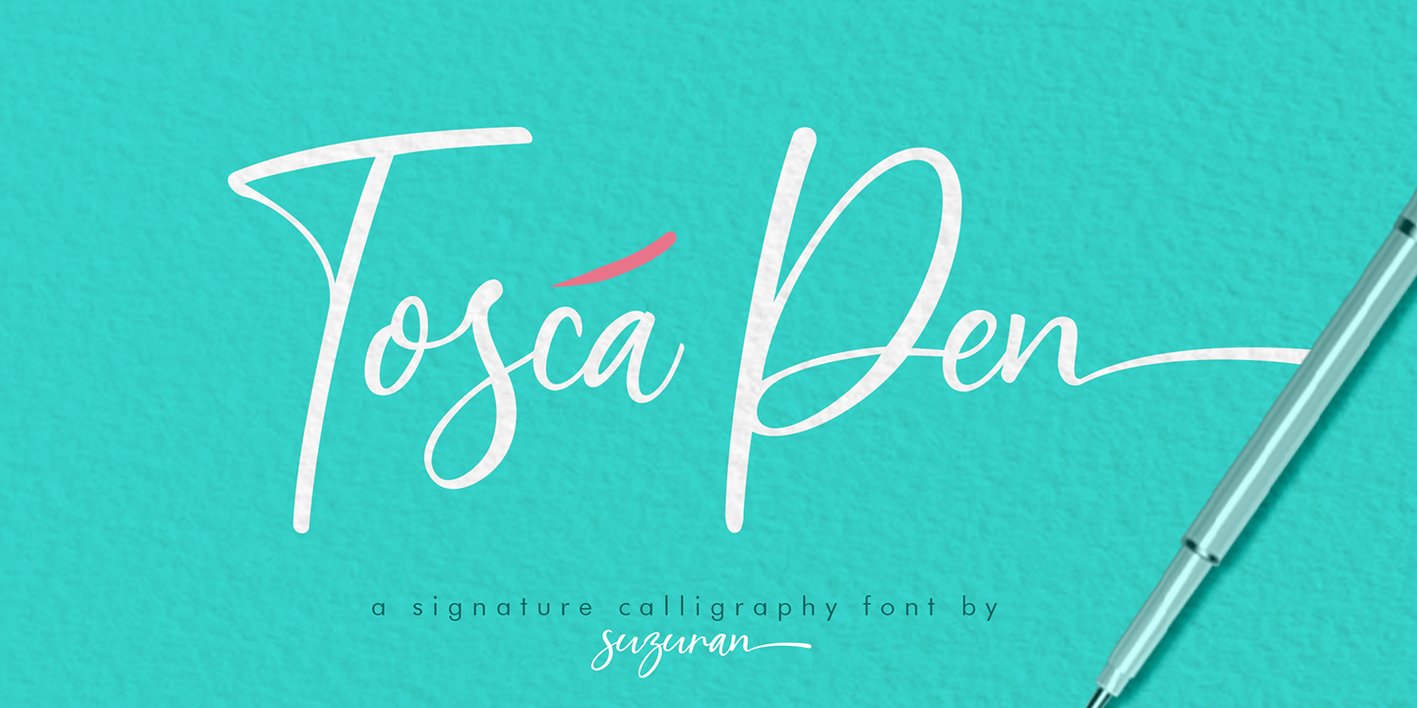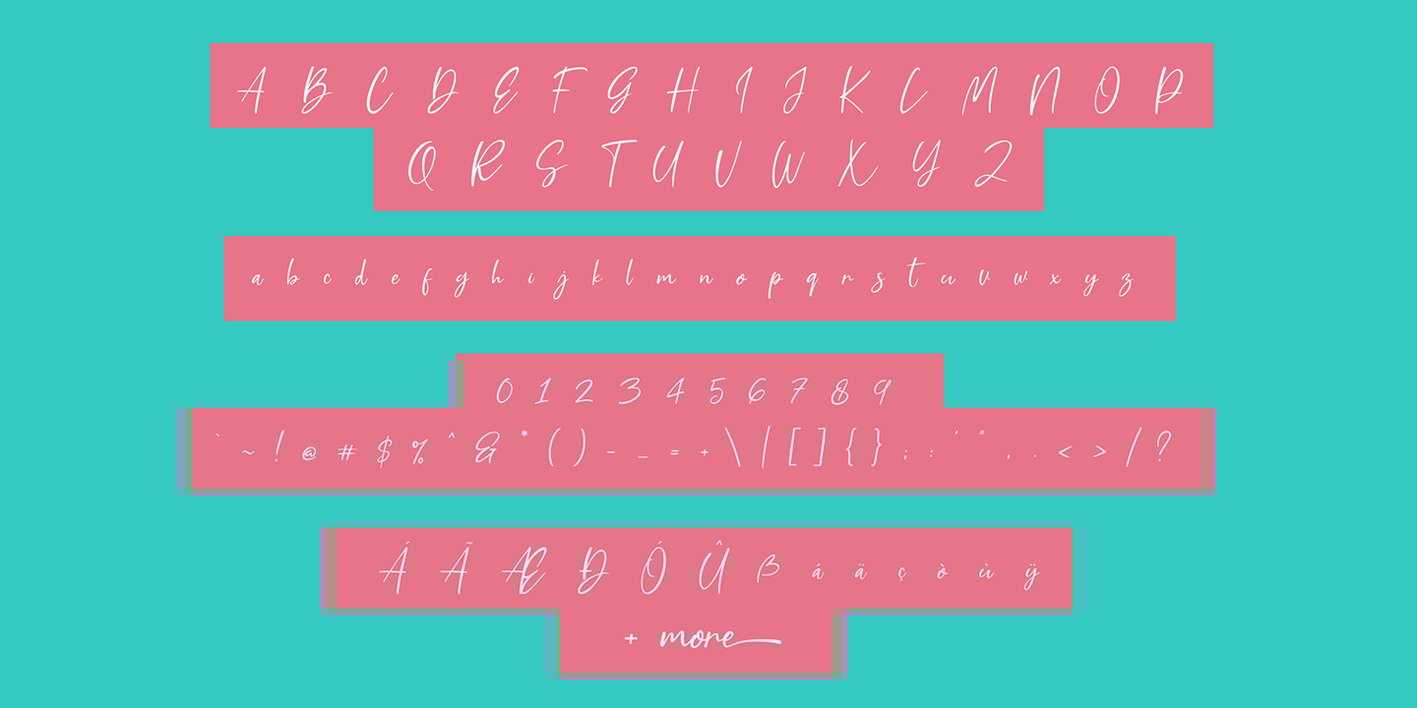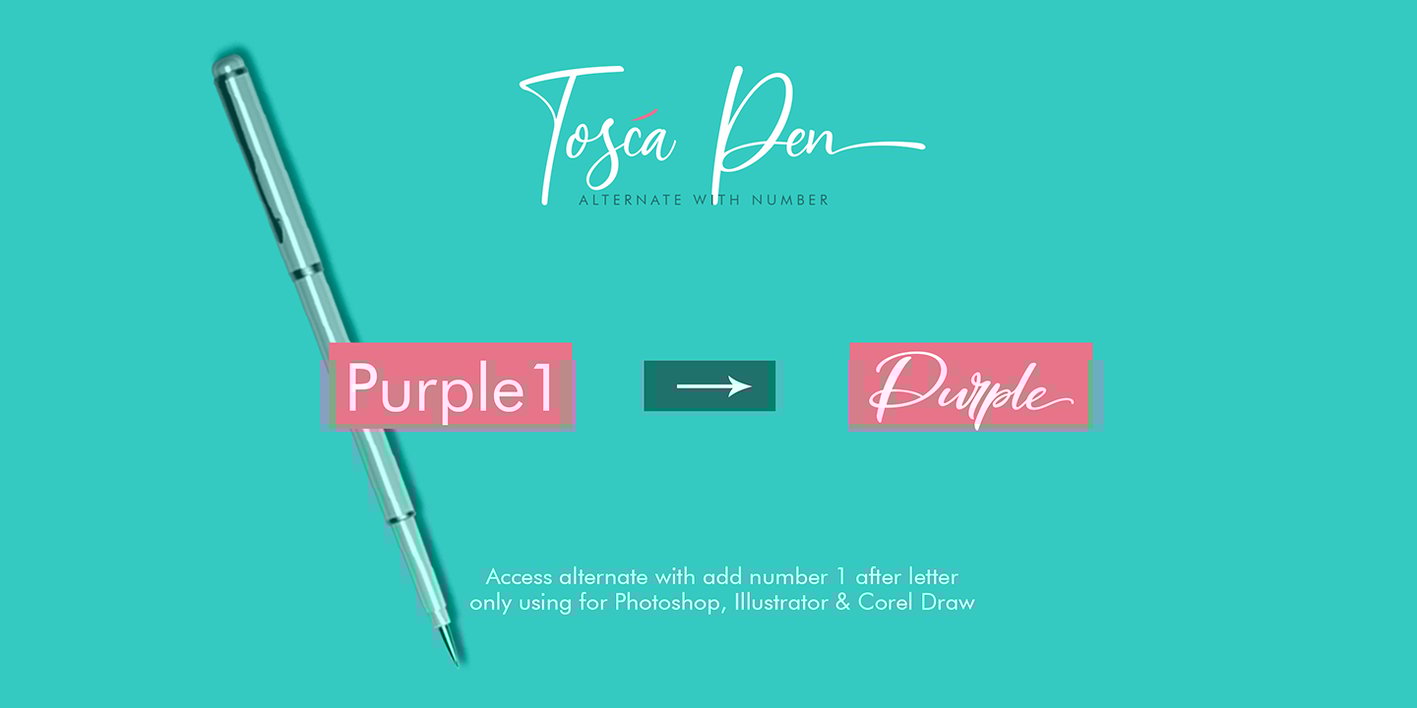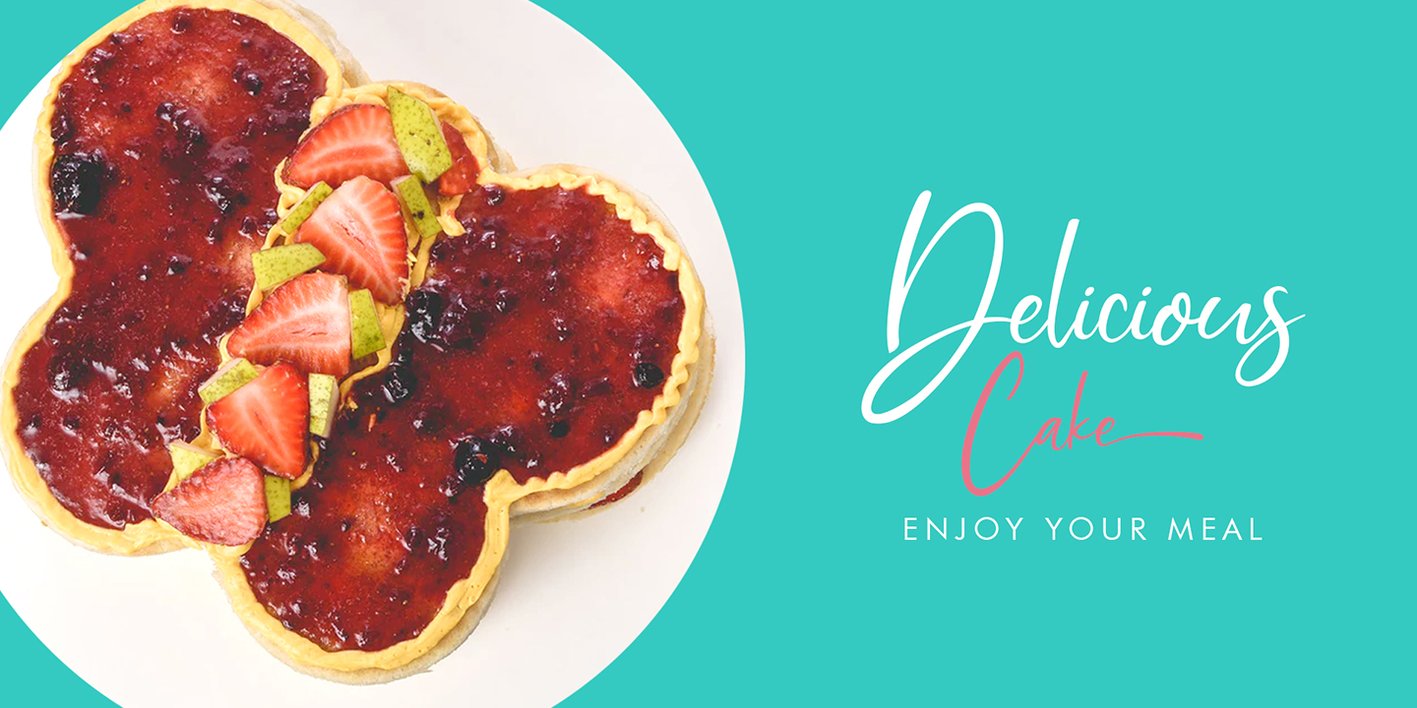
Tosca Pen Font
Introducing the Toscal Pen script, a font that is very fresh and unique, handmade style. Tosca Pen script is perfectly suited for logos, signatures, stationery, posters, apparel, branding, wedding invitations, cards, taglines, layout designs, and much more.